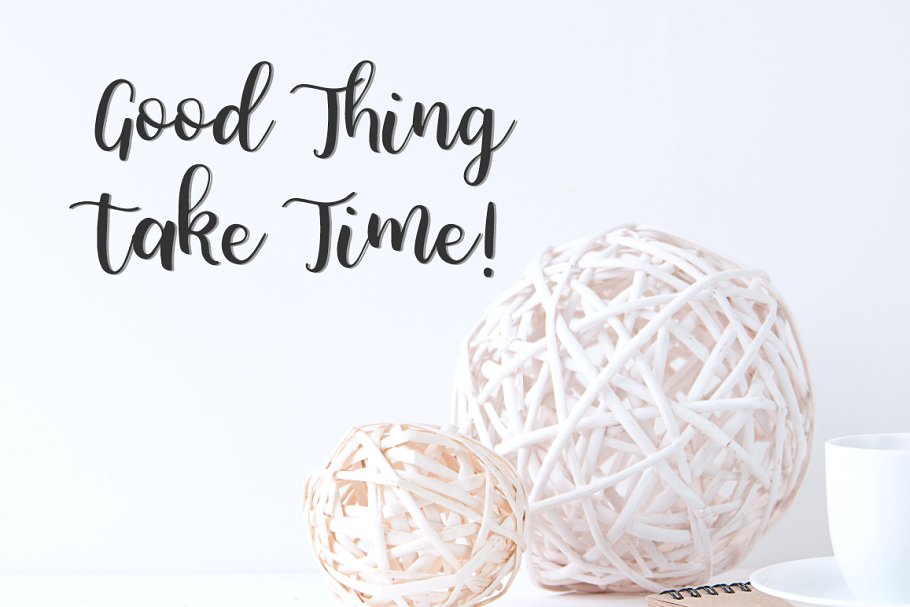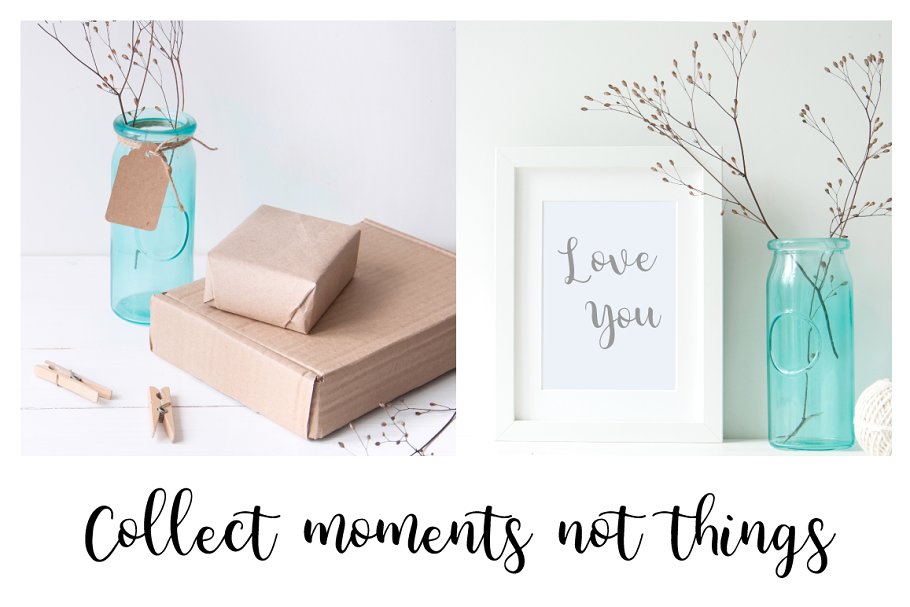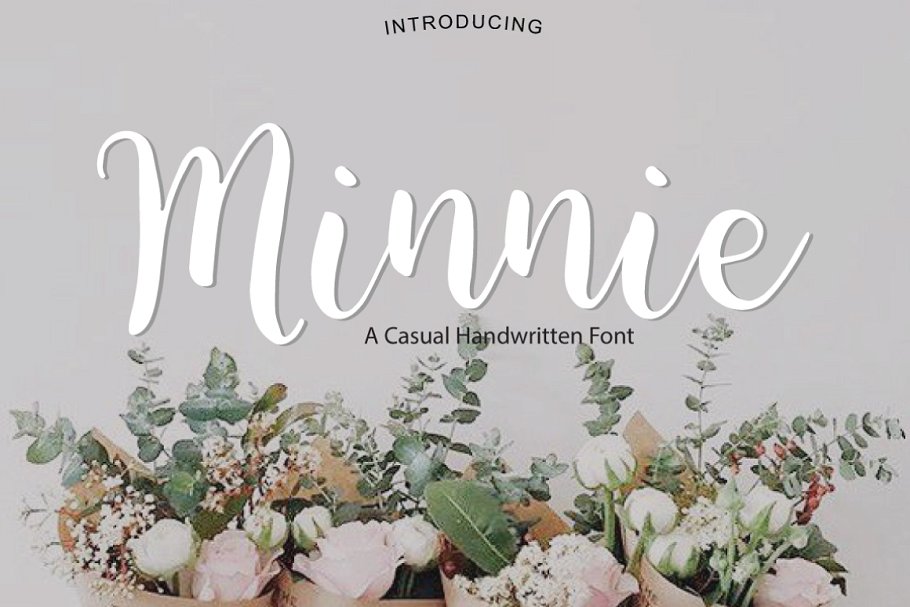
Minnie | Script Font
Minnie
It is a casual font with a multitude of letter variations to make that perfect and unique design.
This font is perfect for wedding invitation or your blog. Also with their help, you can create a logo or beautiful frame for your home. Or just use for your small business, book covers, stationery and more.